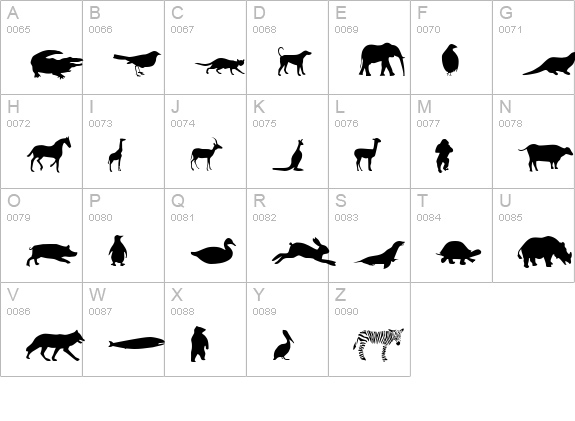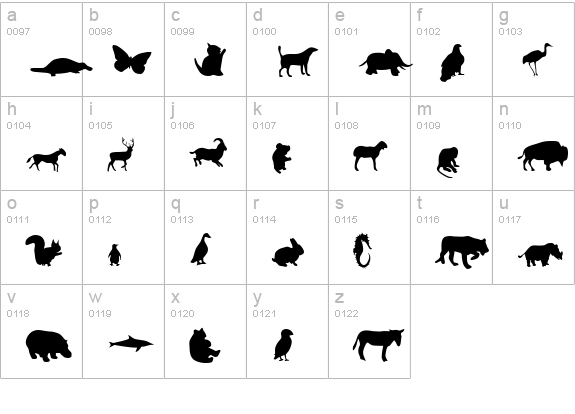
Animals Regular Font Details
Animals Regular is the standard, neutral variant in the Animals typeface family \xE2\x80\x94 well suited to general body text, paragraphs, and standard typographic work.
Introducing Animals Regular font, a whimsical and playful typeface perfect for a variety of creative projects. With its charming design and smooth curves, Animals Regular adds a touch of fun and personality to any text or design. Whether you're working on a children's book, party invitation, or branding project, this font will bring your ideas to life with its unique style. Best of all, Animals Regular font is free to download at FontsMarket.com! Don't miss out on this fantastic opportunity to add a touch of creativity to your work without spending a dime. Download Animals Regular today and let your imagination run wild with this delightful font.